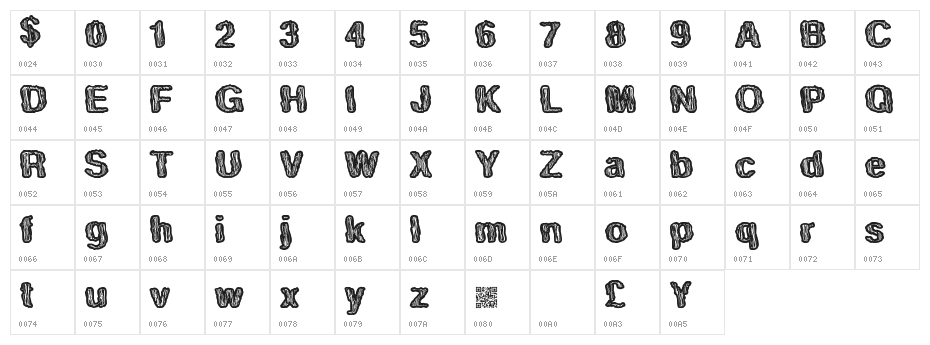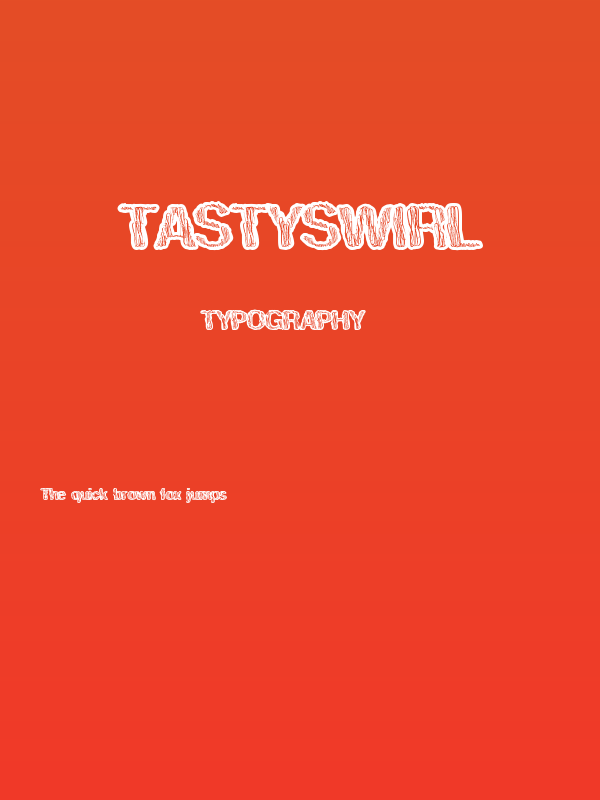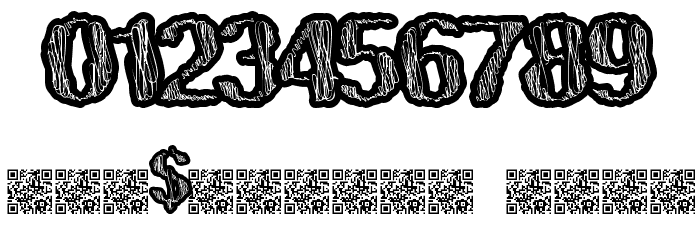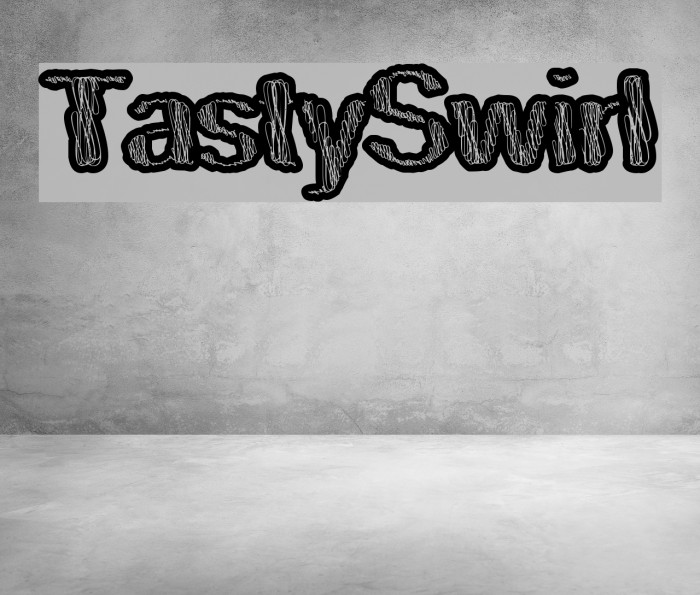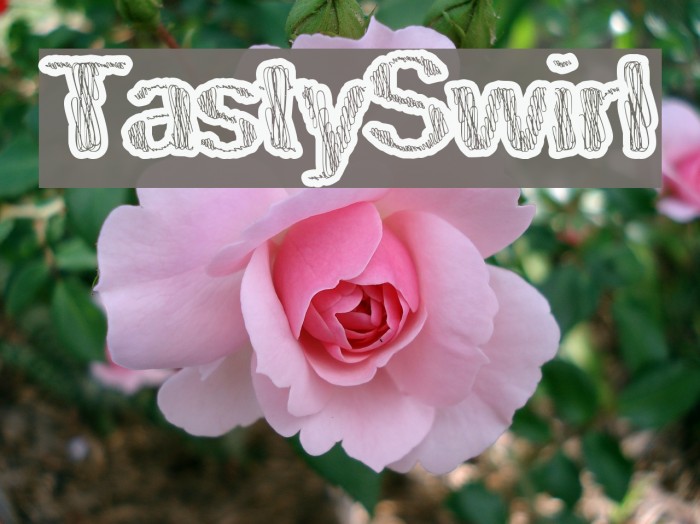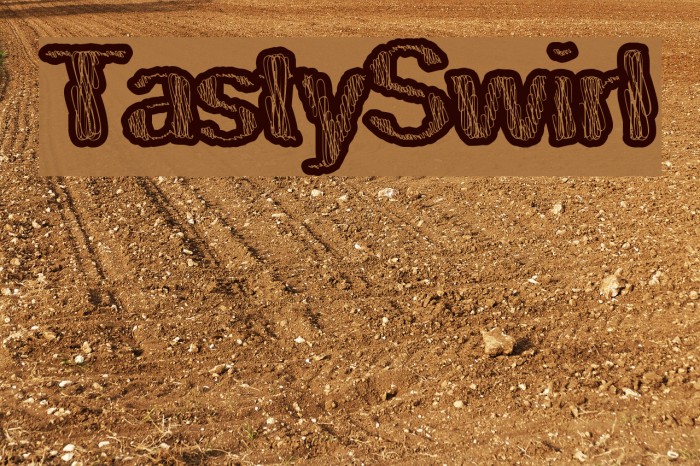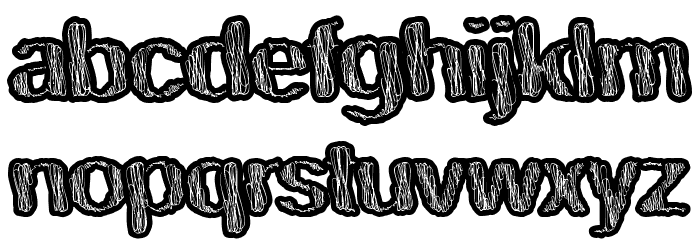
TastySwirl Font
TastySwirl Description
This font features a playful and textured design, reminiscent of swirling patterns or wood grain. Each character is bold and has a hand-drawn quality, giving it a lively and dynamic appearance. The strokes are thick and uneven, adding to the whimsical and organic feel. The uppercase and lowercase letters maintain a consistent style, while the numbers and special characters complement the overall aesthetic. This font is ideal for projects that require a fun and engaging look, such as children's books, posters, or creative branding.